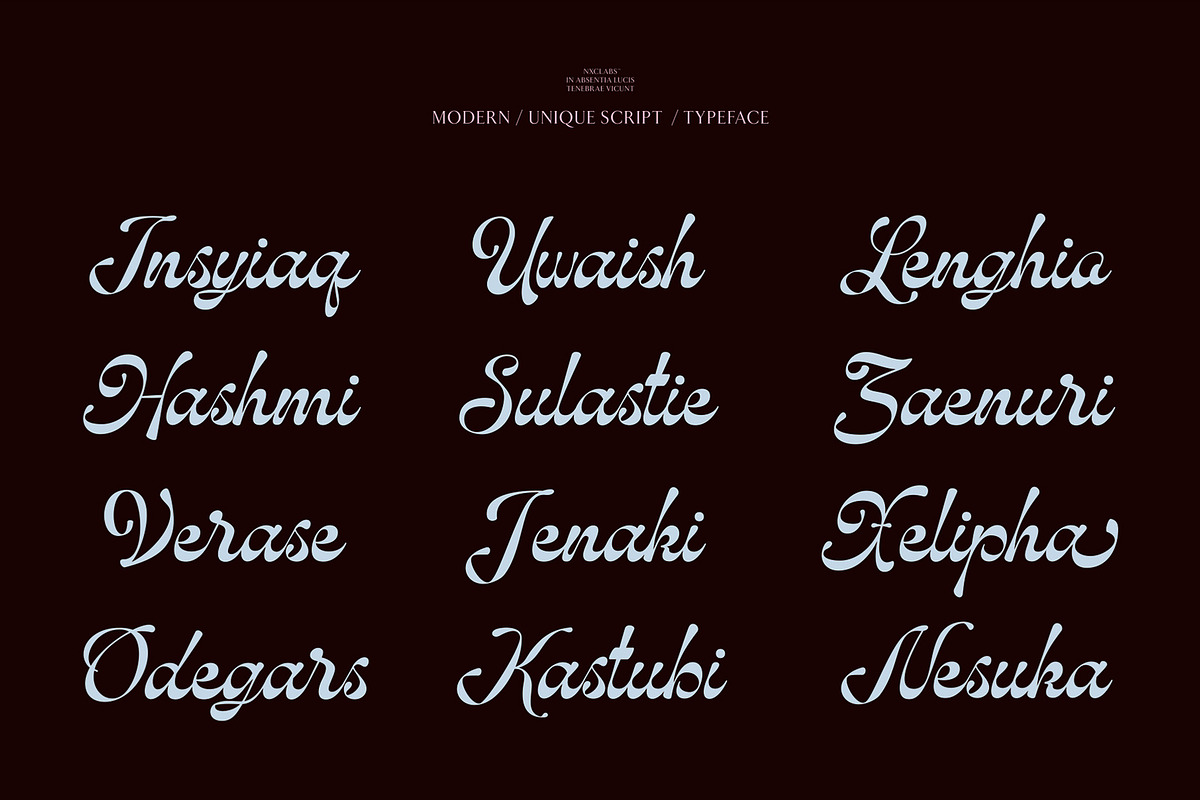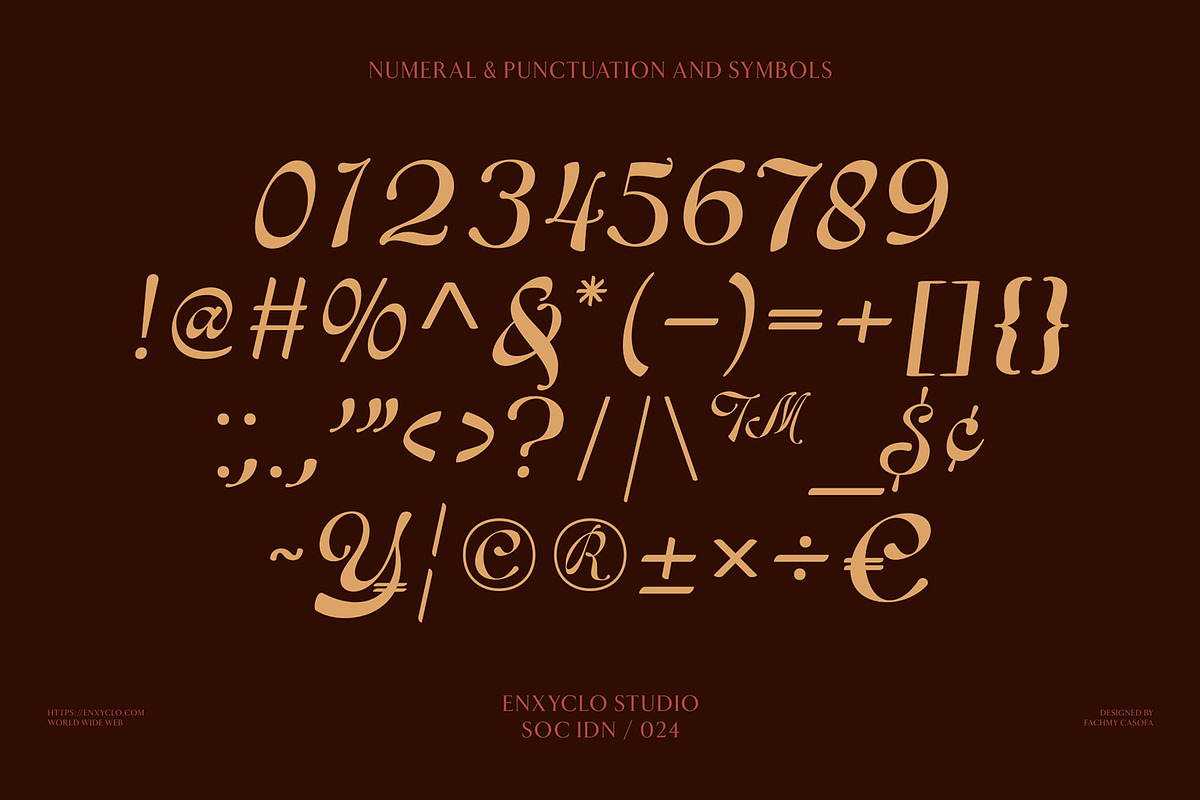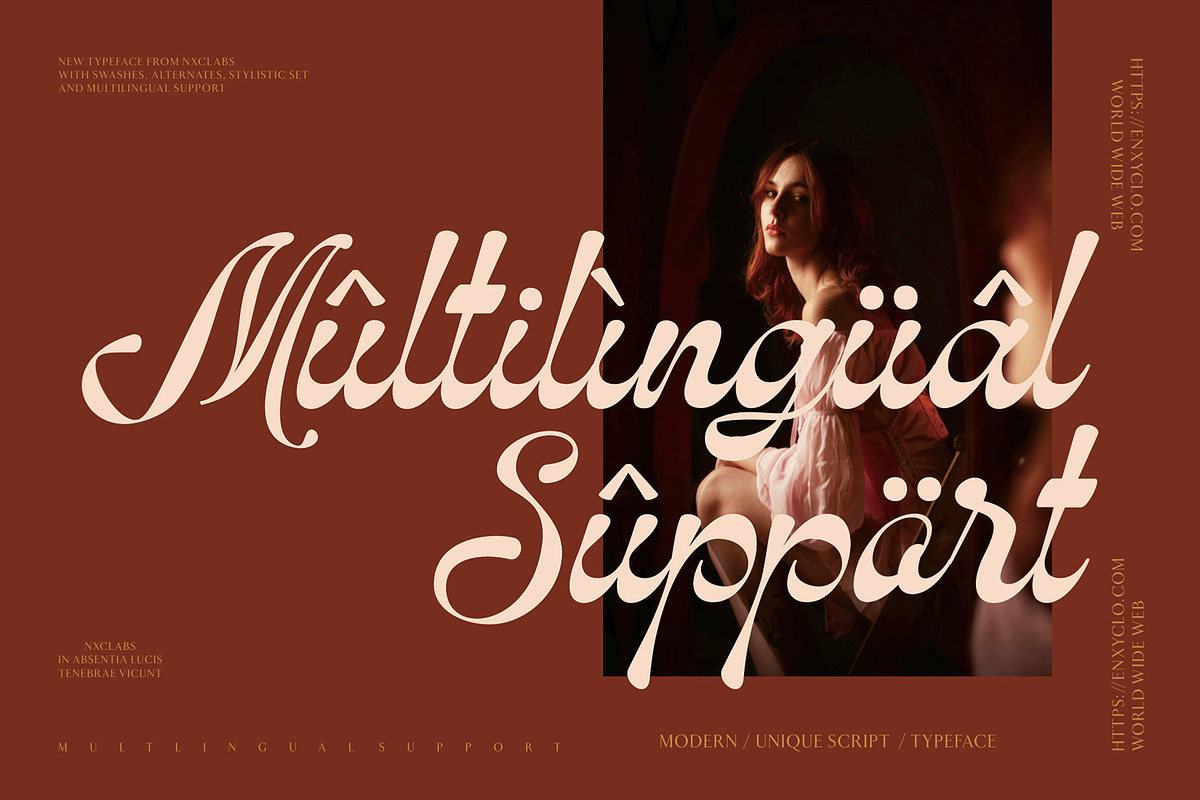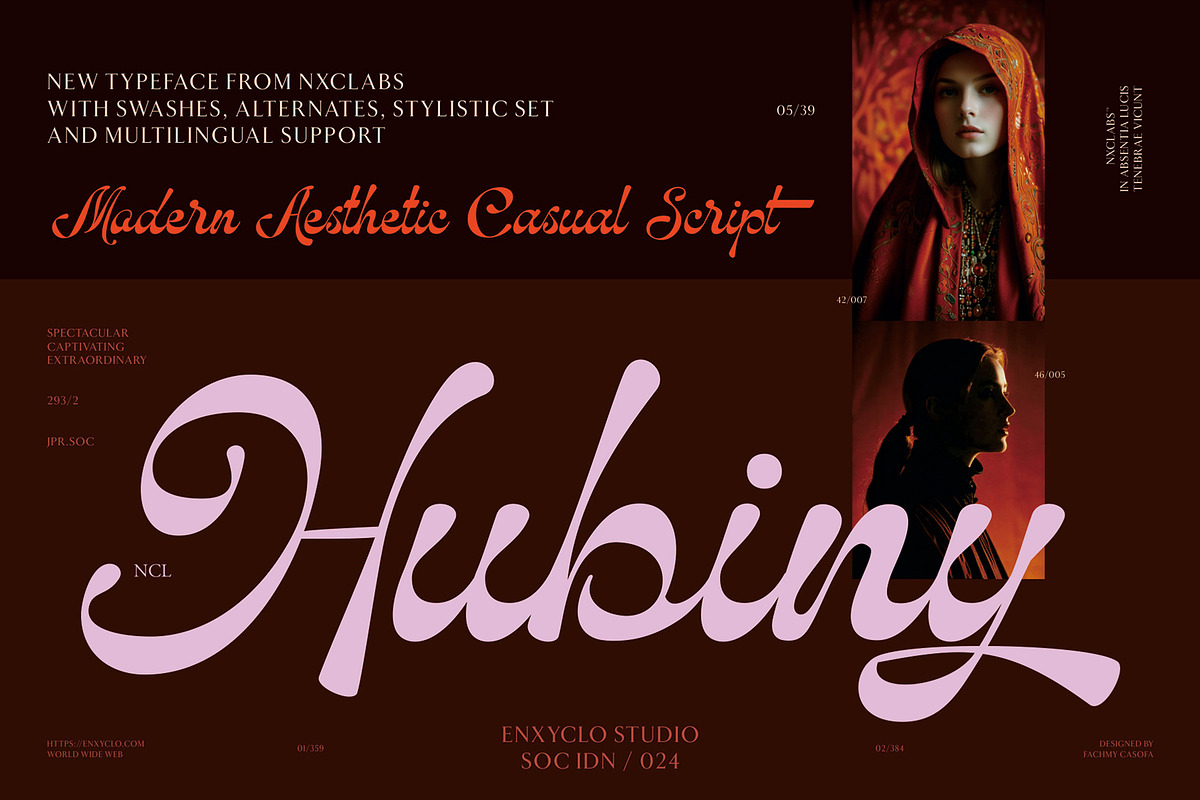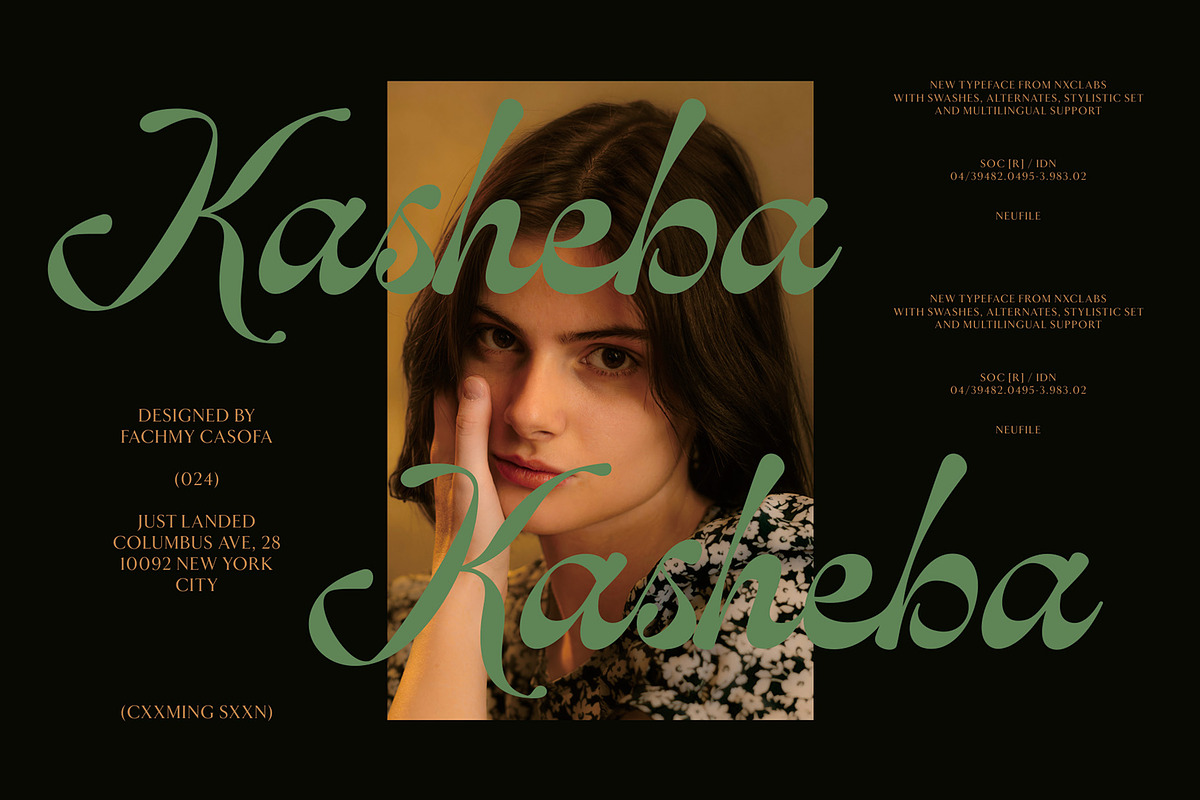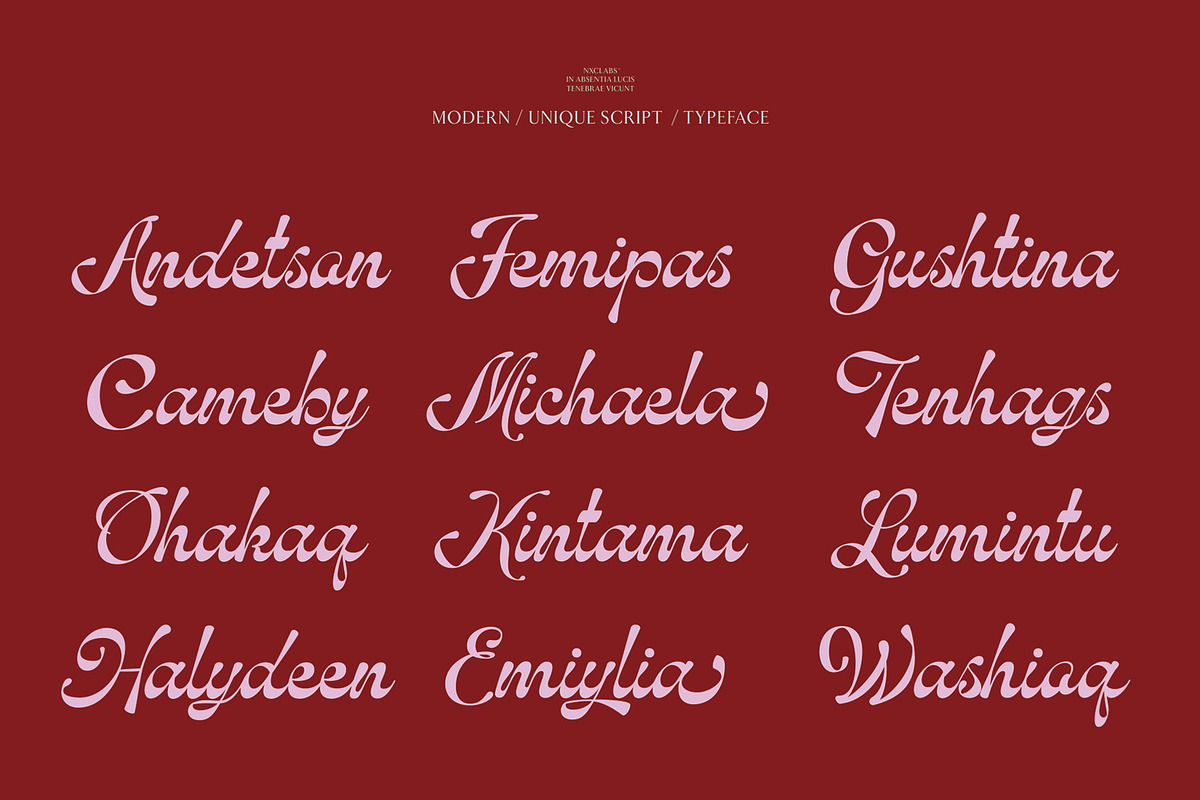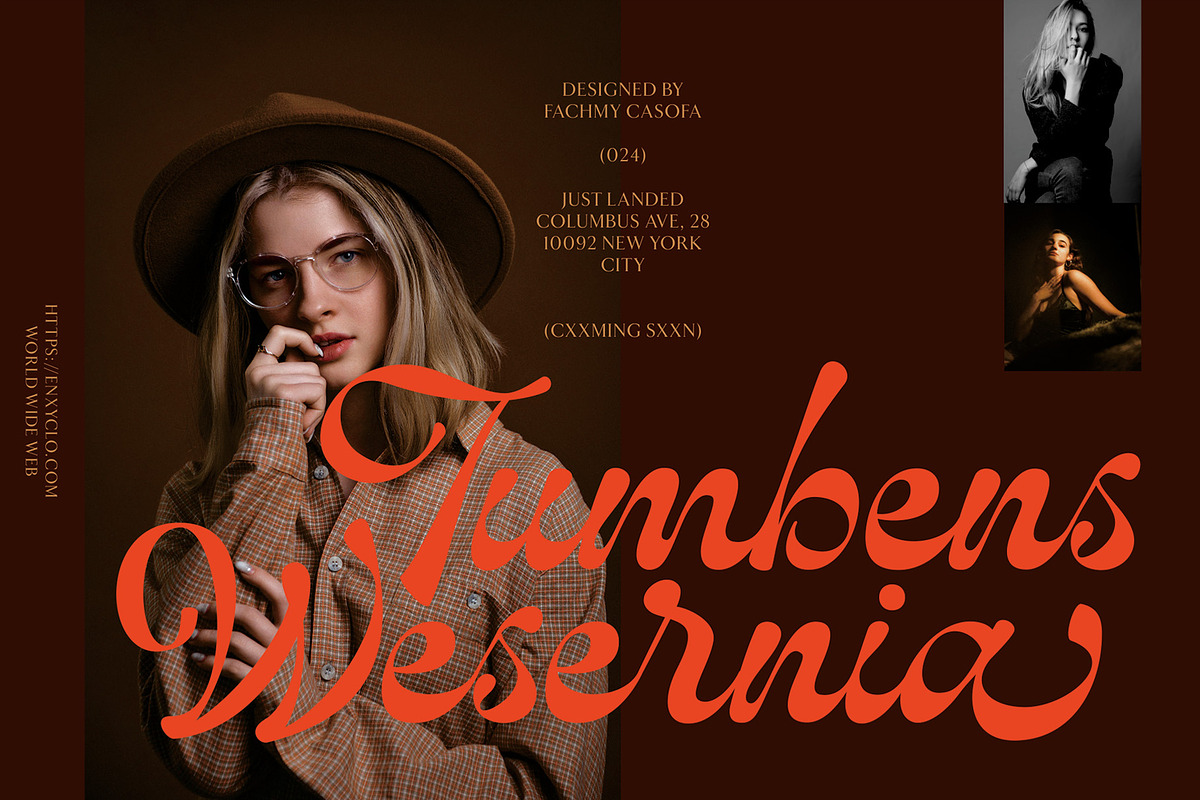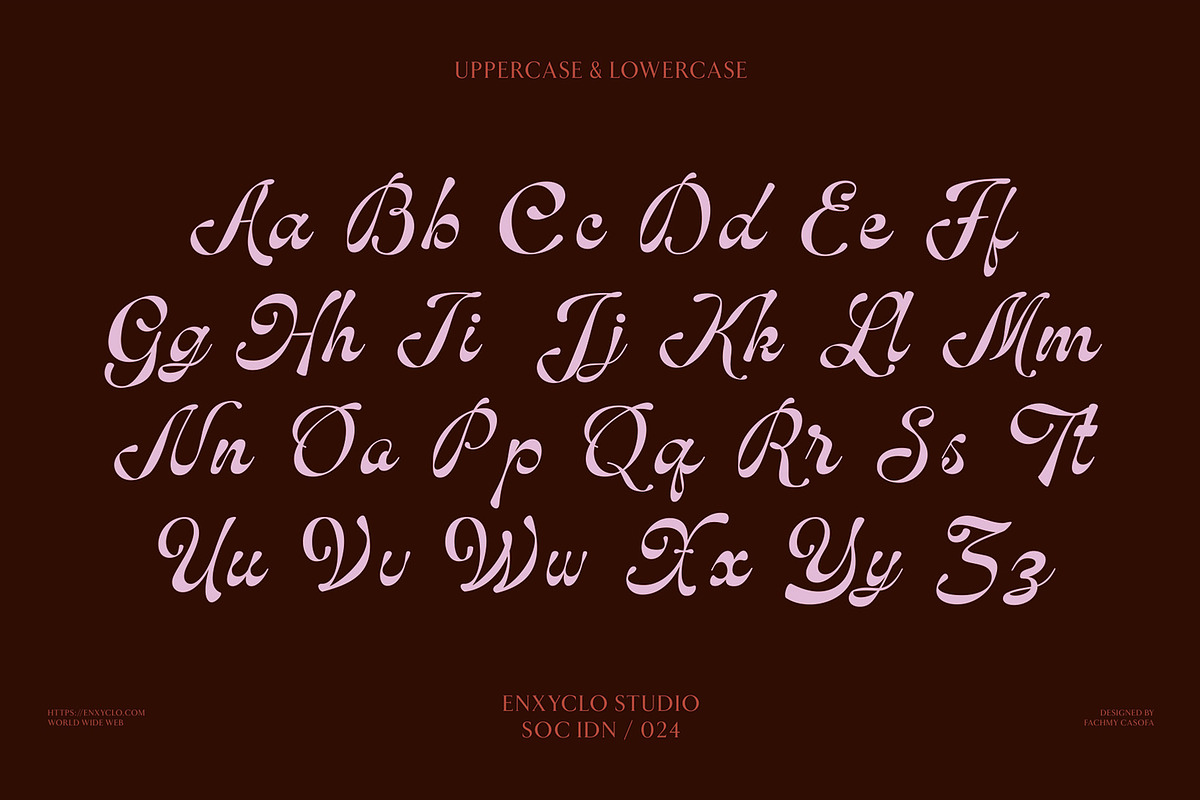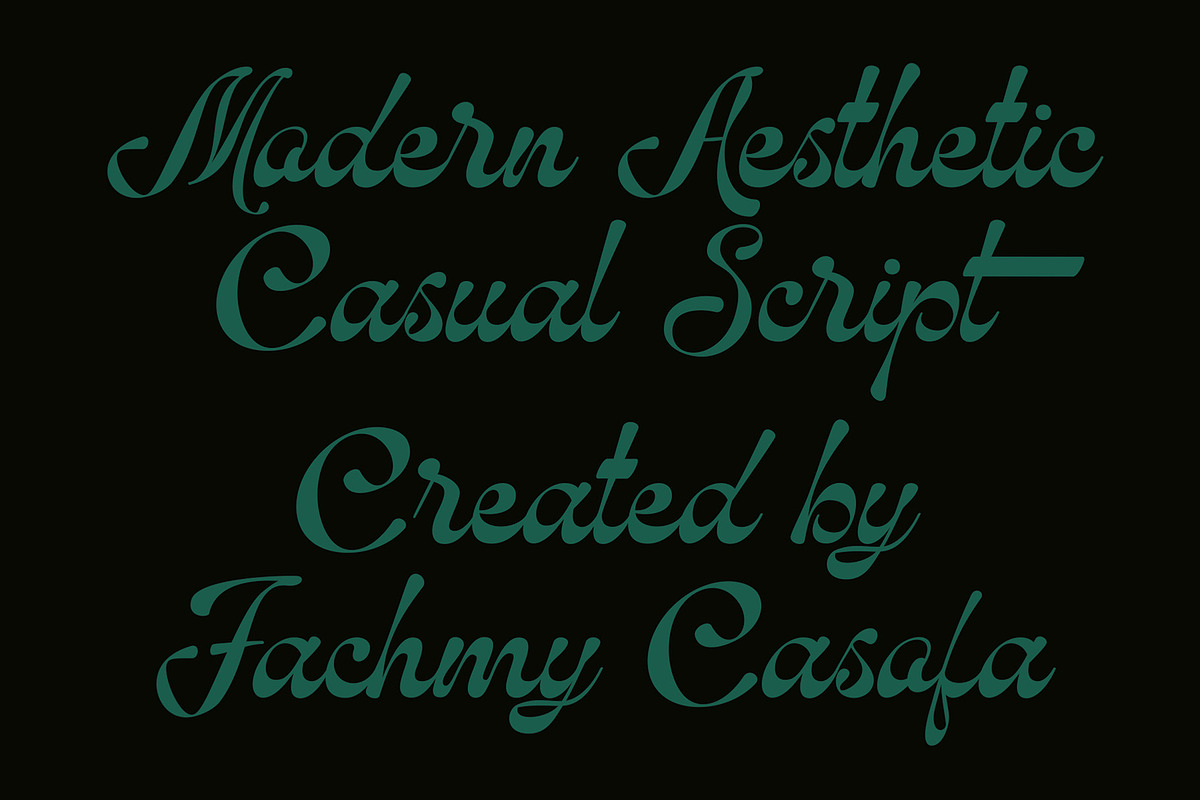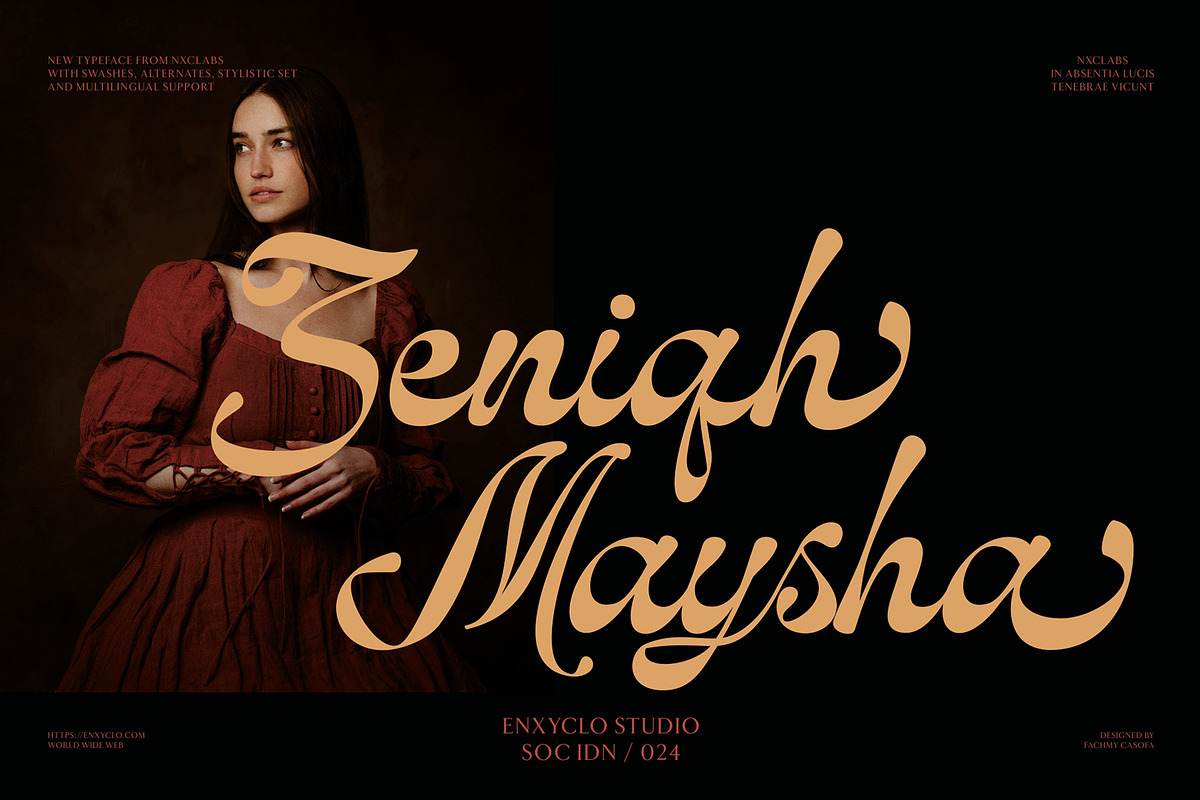
NCL Hubiny — Elegant Script
NCL HUBINY is a timeless modern classic script font that captures the essence of luxury, elegance, and refined sophistication. Crafted with graceful curves and beautifully balanced strokes, this typeface blends the charm of classic calligraphic style with a modern luxurious touch. The result is a lavish and premium script font that feels rich, stylish, and effortlessly captivating. Designed for brands that seek beauty and distinction, NCL HUBINY transforms typography into an elegant visual signature. Its flowing script character creates a refined harmony between classic aesthetics and contemporary expression, making it ideal for logos, fashion brands, and premium visual identities. Every curve carries a sense of glamour and personality, allowing your designs to communicate elegance with confidence.
Inspired by the world of fashion, cosmetic, beauty, skincare, and boutique branding, NCL HUBINY delivers a luxurious aesthetic that enhances every detail. Whether used for premium packaging, editorial layouts, beauty campaigns, or sophisticated product branding, this font creates a rich atmosphere that feels aesthetic, polished, and timeless. More than just a script font, NCL HUBINY is designed to become a symbol of premium design and modern elegance—perfect for creators who want to build luxurious brands, glamorous visuals, and unforgettable experiences through sophisticated typography.
FEATURE
254 Unique Glyphs
Alternates & Stylistic Set 1-3
Numeral, Punctuation & Symbols
PERFECT FOR
Luxury Logo & Branding
Fashion & Boutique Identity
Beauty, Cosmetic & Skincare Packaging
Premium Product Labels
Glamour Advertising Campaigns
Elegant Editorial & Magazine Design
Signature Logos & Personal Branding
Wedding Invitations & Luxury Stationery
Social Media Branding
High-End Visual Identity Design